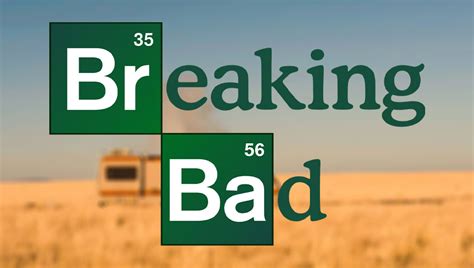
Breaking Bad Font Name. Inspired by the breaking bad logo. Web about heart breaking bad font.
Heart Breaking Bad Font
Web about heart breaking bad font. Web based on the tv show, breaking bad. Inspired by the breaking bad logo. In medium, bold, and black weights, the font looks like the. It is a free font. Heart breaking bad by john athan is a font based on the title logo from the tv show breaking bad.
It is a free font. Inspired by the breaking bad logo. It is a free font. Web about heart breaking bad font. Web based on the tv show, breaking bad. Heart breaking bad by john athan is a font based on the title logo from the tv show breaking bad. In medium, bold, and black weights, the font looks like the.